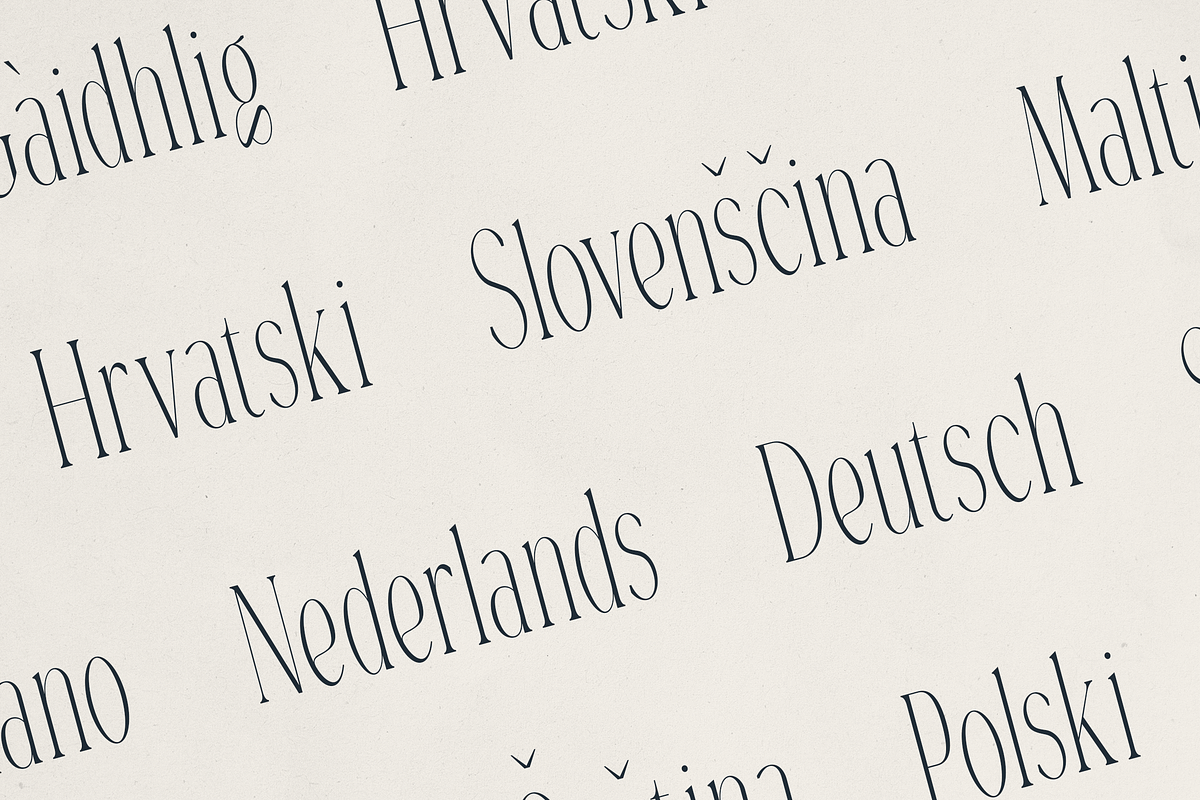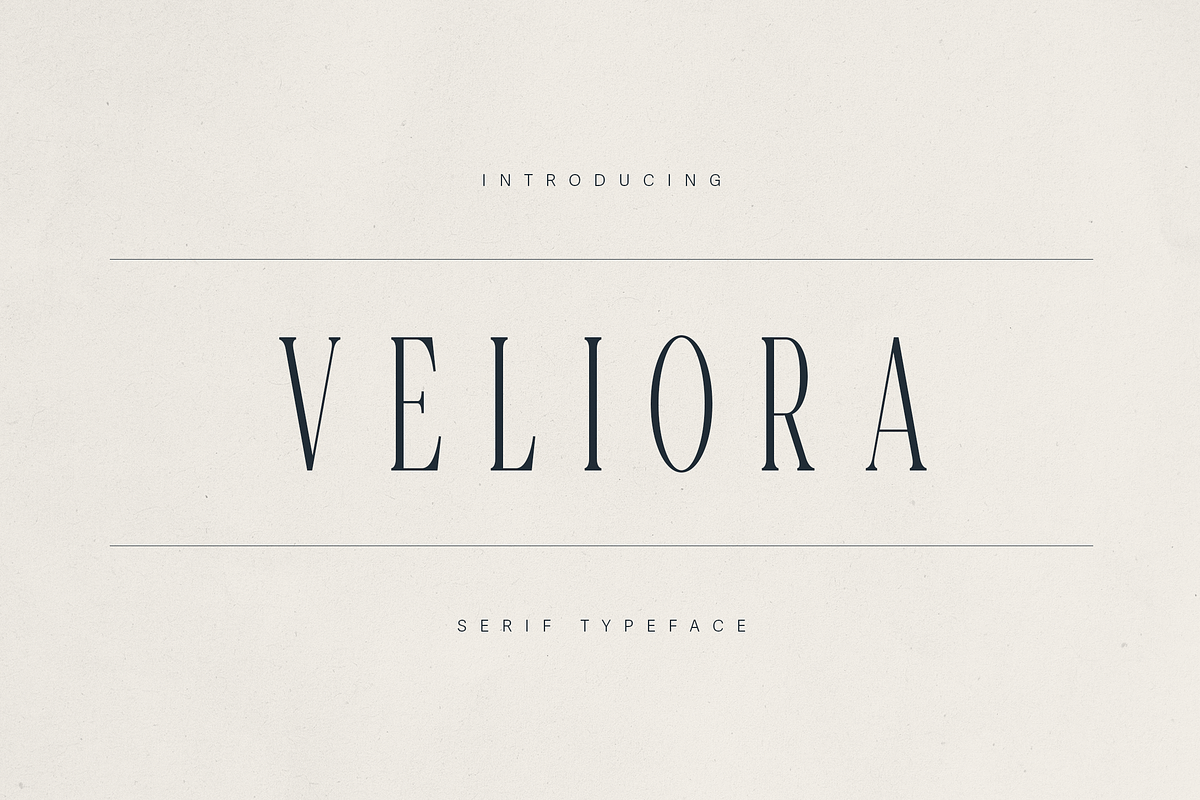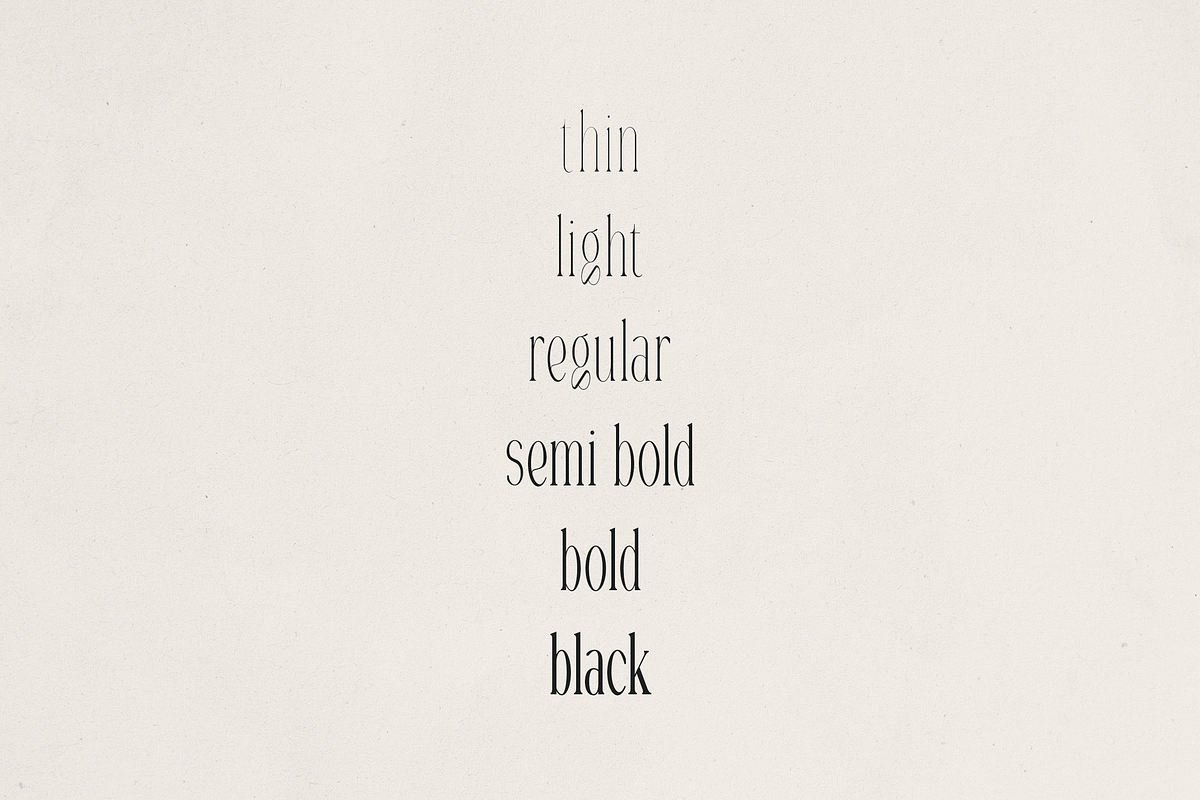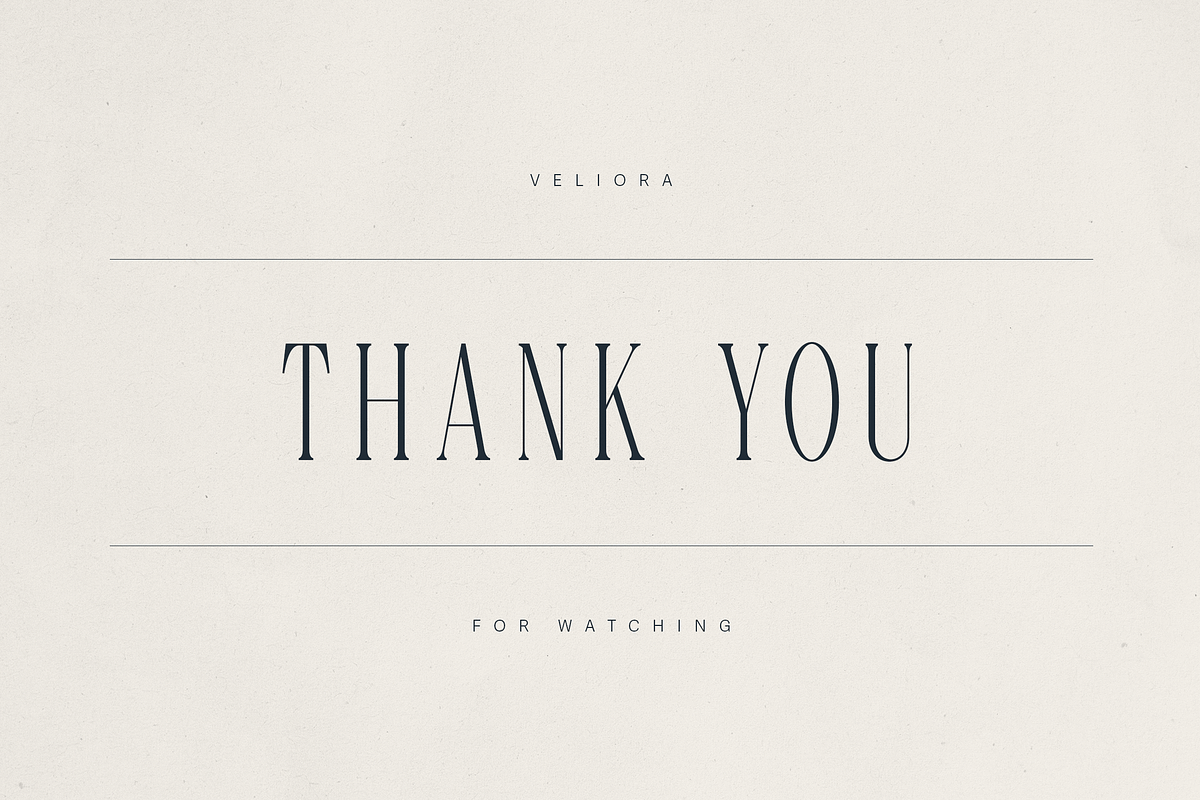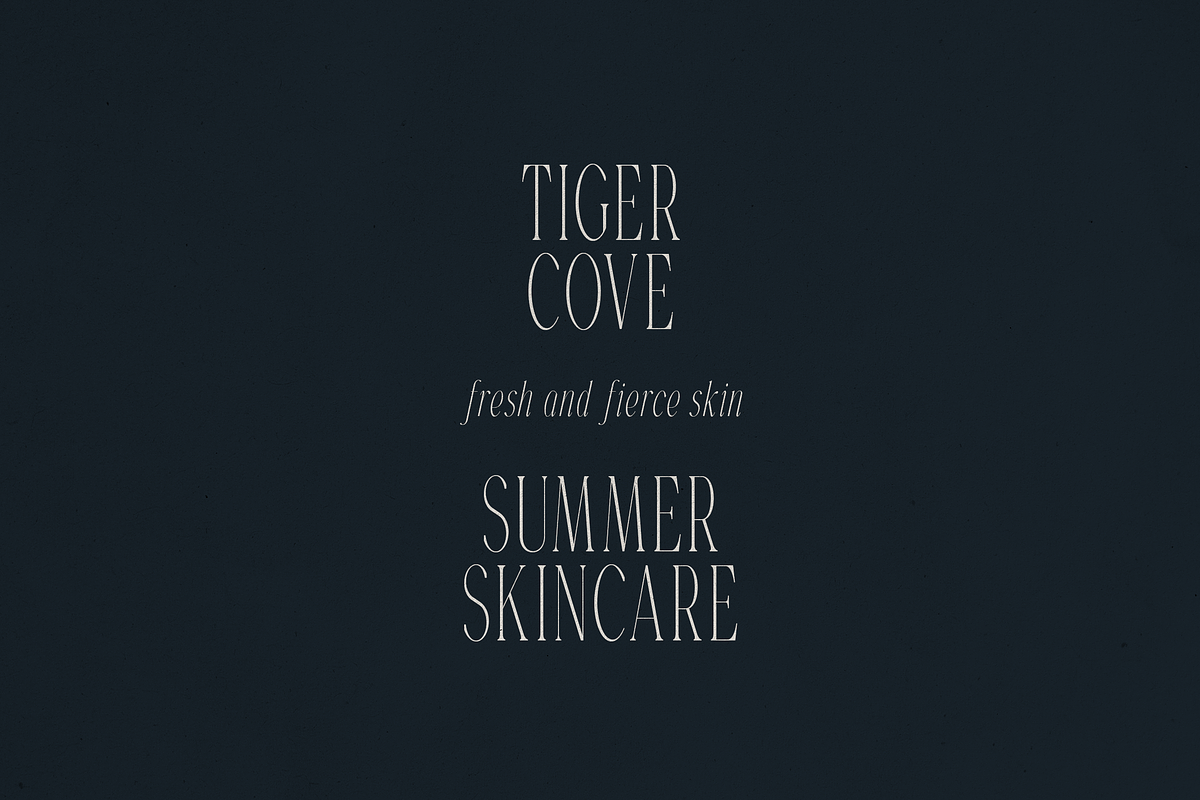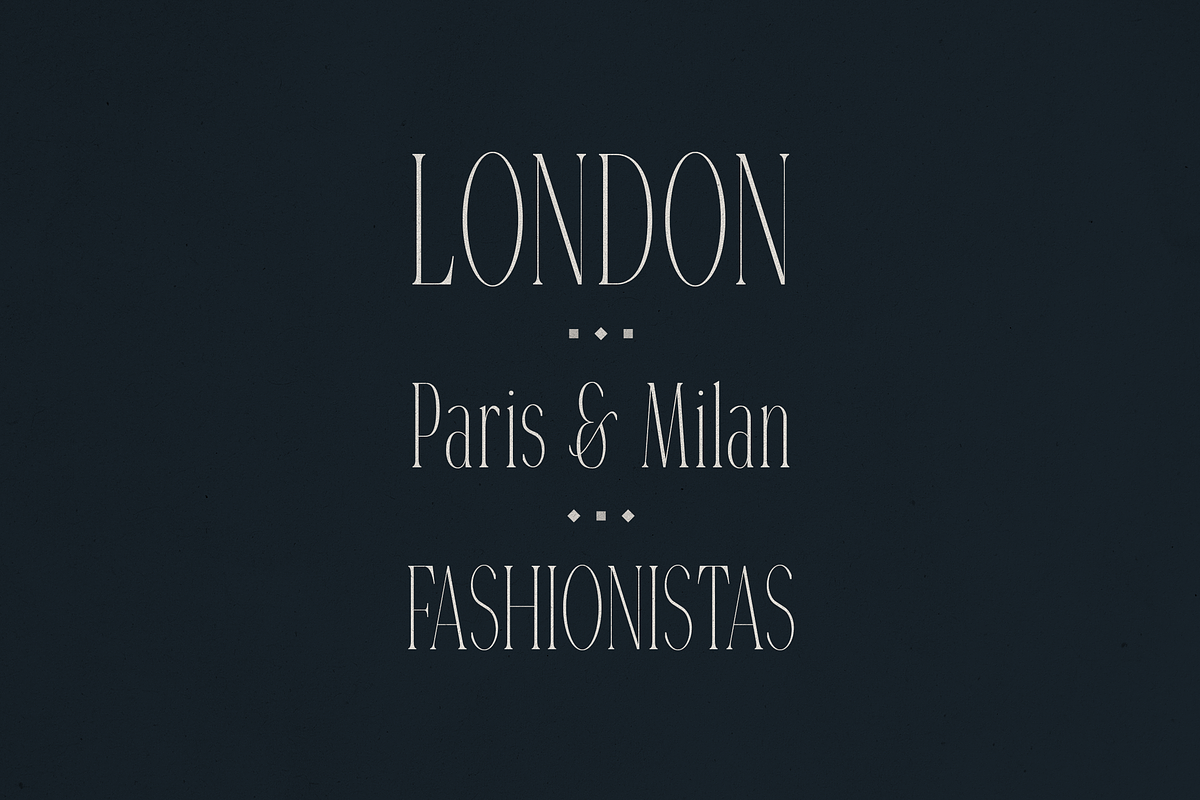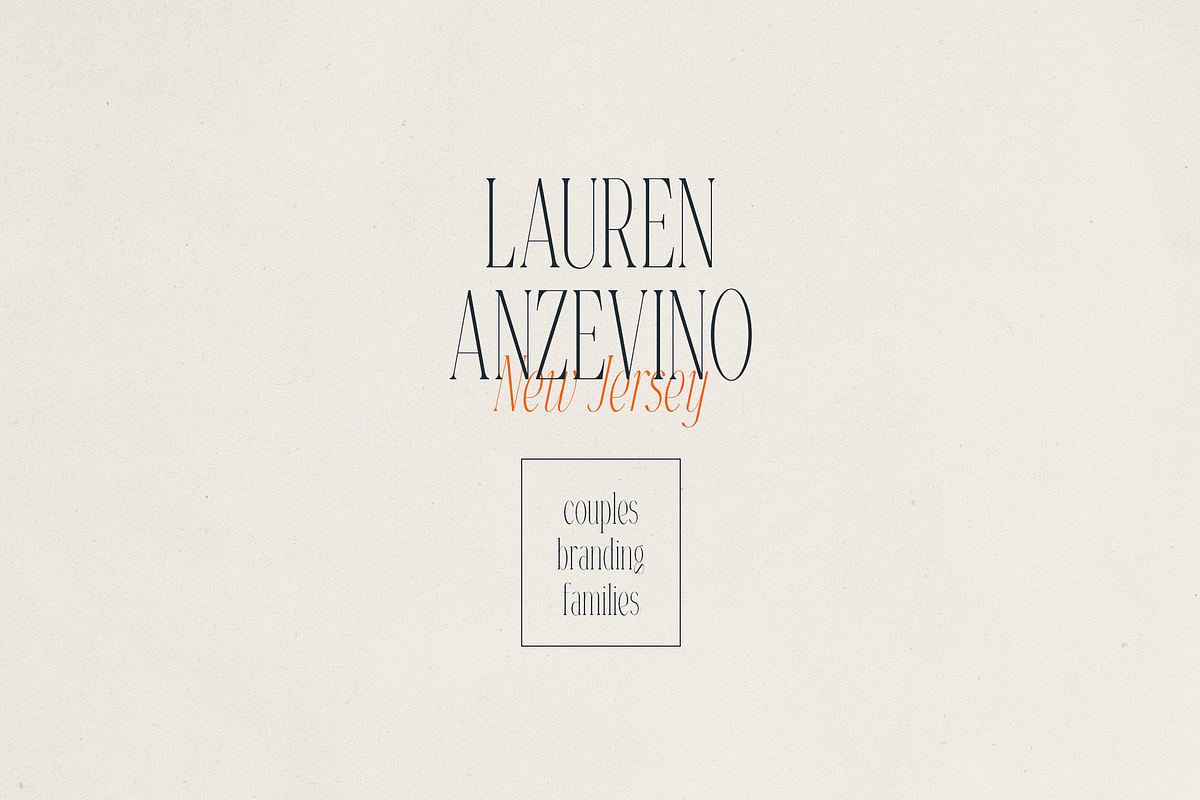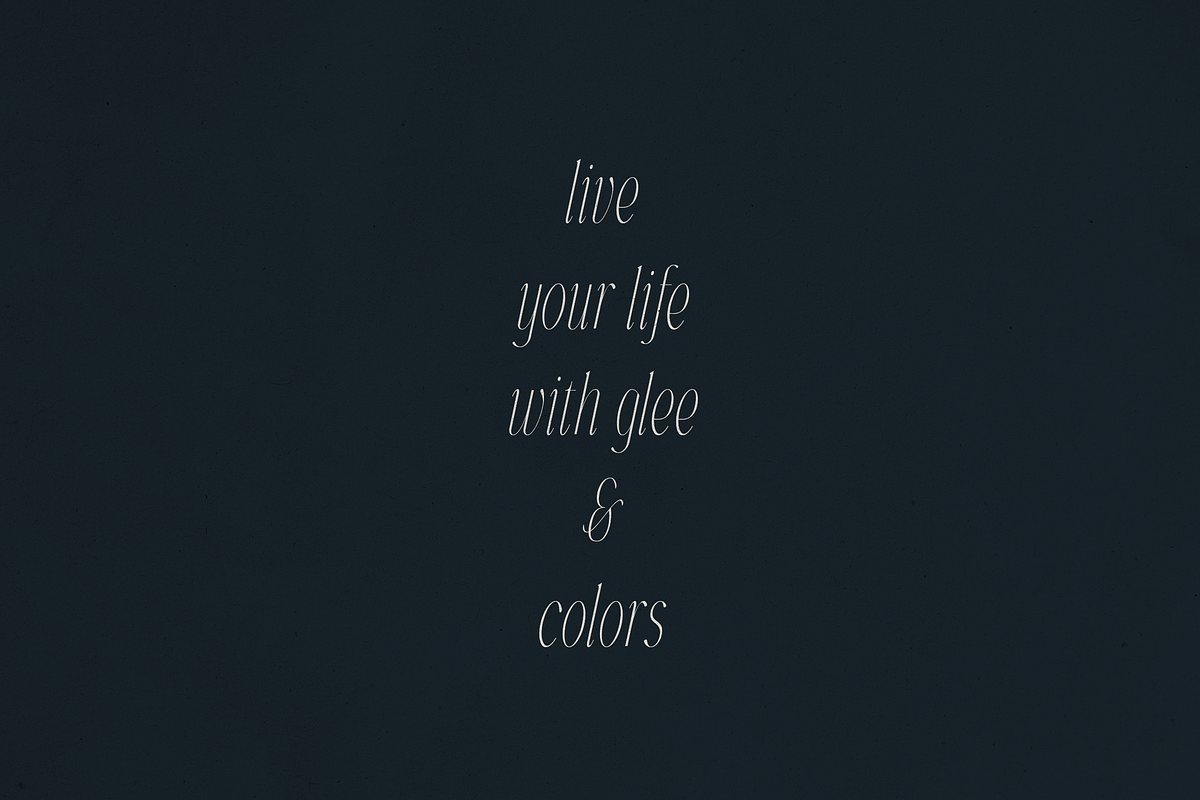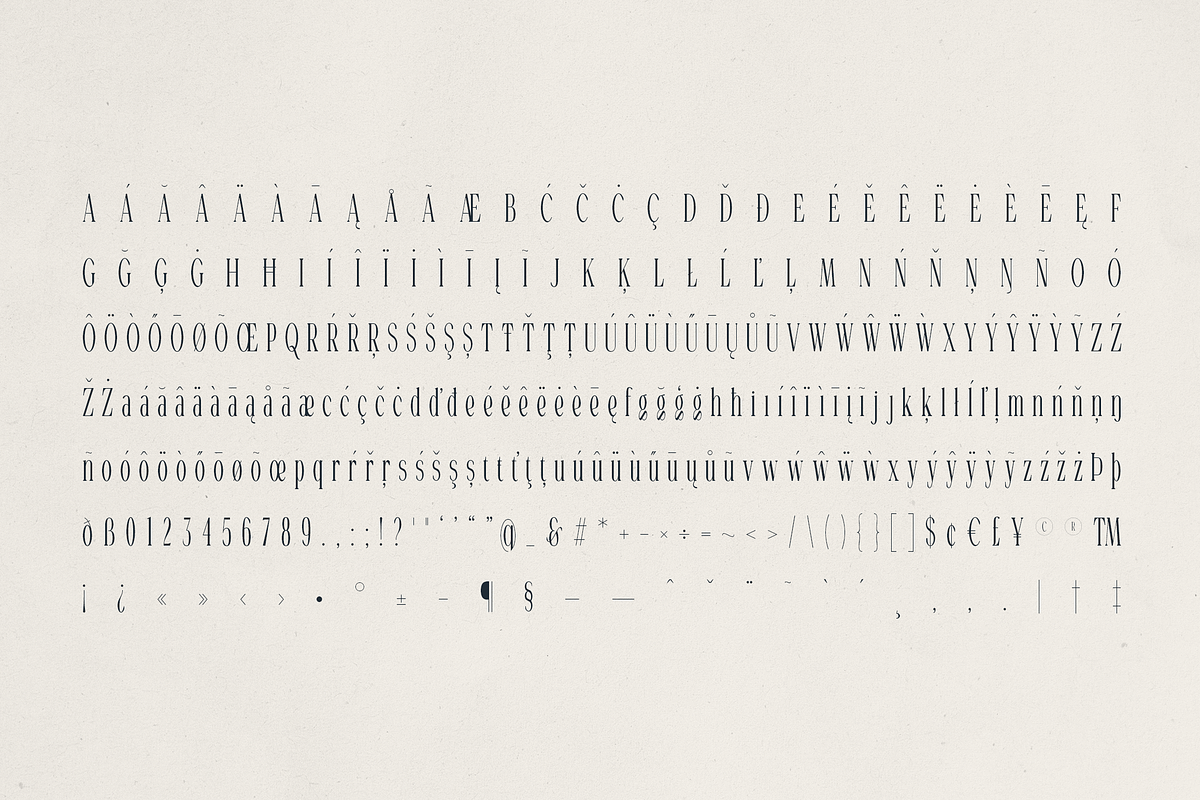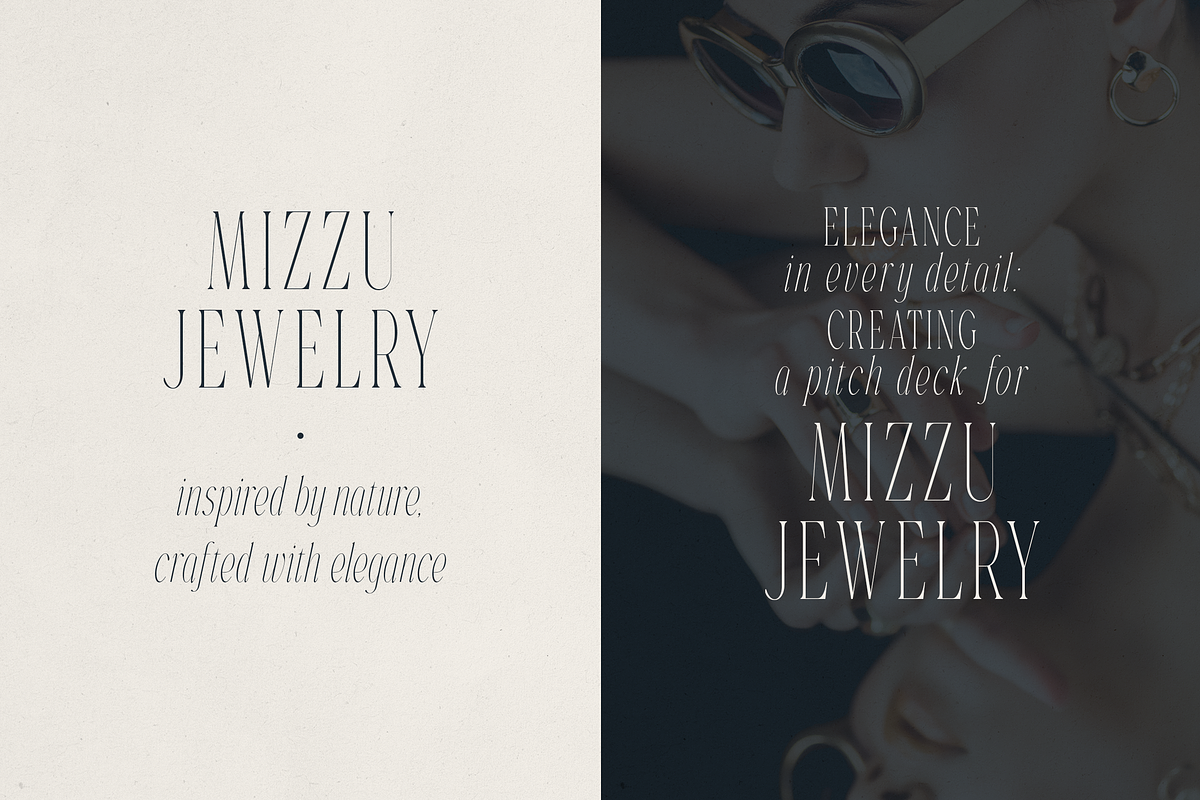
Veliora - Elegant Long Serif
Veliora - Elegant Long Serif Typeface with 5 Weights & Italics
Veliora is a refined long serif typeface designed to bring timeless sophistication to modern design. With 5 carefully crafted weights—ranging from Thin to Black — and matching italics for each, this font family offers versatility for editorial layouts, branding, packaging, websites, and more.
The elongated letterforms and graceful contrast strike the perfect balance between classic elegance and contemporary minimalism. Whether you're designing magazine spreads, luxury logos, or high-end product packaging, Veliora adds a distinctive, professional touch.
- 5 weights
- Matching true italics
- Elegant long serifs for a luxurious, high-fashion feel
- Excellent legibility for both display and text sizes
- Supports multilingual characters
Perfect for editorial design, fashion branding, and premium digital content, Veliora is a statement-making serif that blends beauty with function.